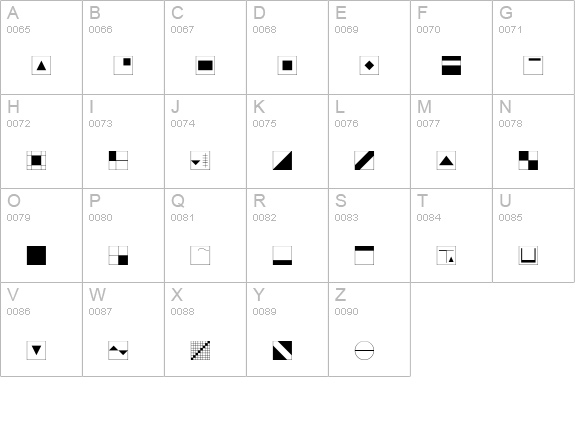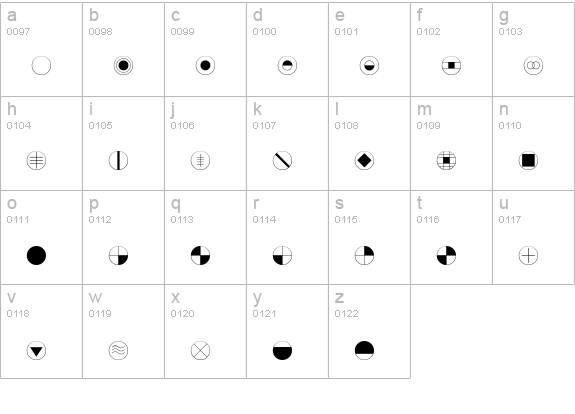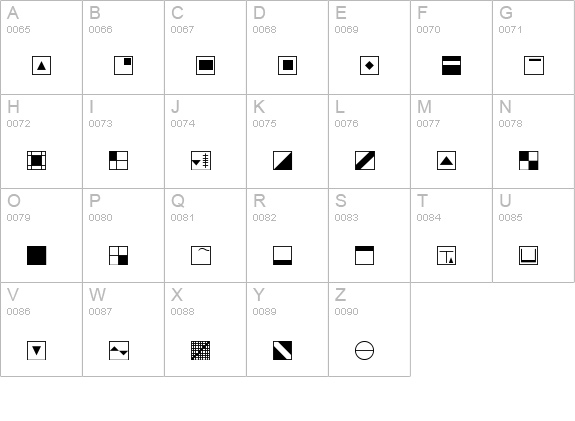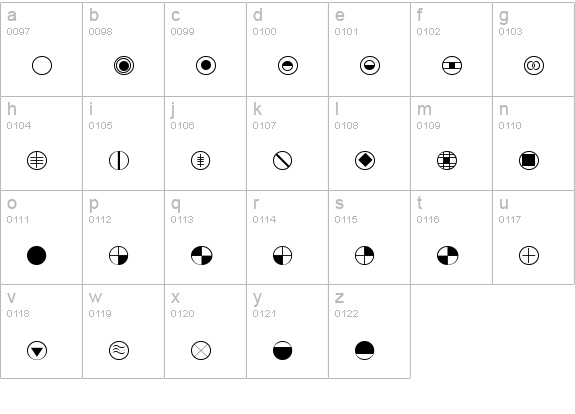
DeStijl Extras Font Details
DeStijl Extras font is a stunning display typeface that exudes elegance and sophistication. With its sleek lines and geometric shapes, this font is perfect for adding a modern touch to your designs. The DeStijl Extras font comes with a wide range of unique characters and symbols, making it versatile for various creative projects. Whether you're designing a logo, poster, or website, this font will make your text stand out. The best part? DeStijl Extras font is completely free! You can download this amazing font at FontsMarket.com and start using it in your projects right away. Don't miss out on the opportunity to enhance your designs with the striking beauty of DeStijl Extras font. Download it now and let your creativity shine!